The Malee Scholarship recognizes nine women for their unique achievements and contributions to the type design industry.
This year The Malee Scholarship recognizes Andrea Hayek, Đông Trúc Nguyễn, Gabriela Jaime, Kajama Chakma, Lee Qiu Wen, Michelle Devlin, Shriya Agarwal, Yaprak Buse Çağlar, and Yejin Wi for their achievements and contributions to the type design industry.
Đông Trúc Nguyễn
Đông Trúc Nguyễn is a graphic designer from Việt Nam and currently a type design student of EsadType 2022-2024. After receiving Bachelor in Graphic Design at Hồ Chí Minh University of Fine Art in 2020, she embarked on a journey of self-education on type design. While living in a rich culture city and getting exposure to 20th-century publications, her interest in typeface began to take root. She finds herself captivated by the typography crafted by Vietnamese artists in this period. I am particularly enamored with their creative manipulation of Vietnamese diacritics and letterforms. Becoming a student at EsadType represents a significant milestone in her career. Her primary objective in the meantime is to grasp the fundamental principles of type design and explore the challenges that must be addressed when designing Vietnamese typefaces. She also immerses herself in linguistic research to create a Vietnamese text typeface. She aims to improve Vietnamese speakers’ reading experience and strengthen and diversify the type design community in Vietnam.
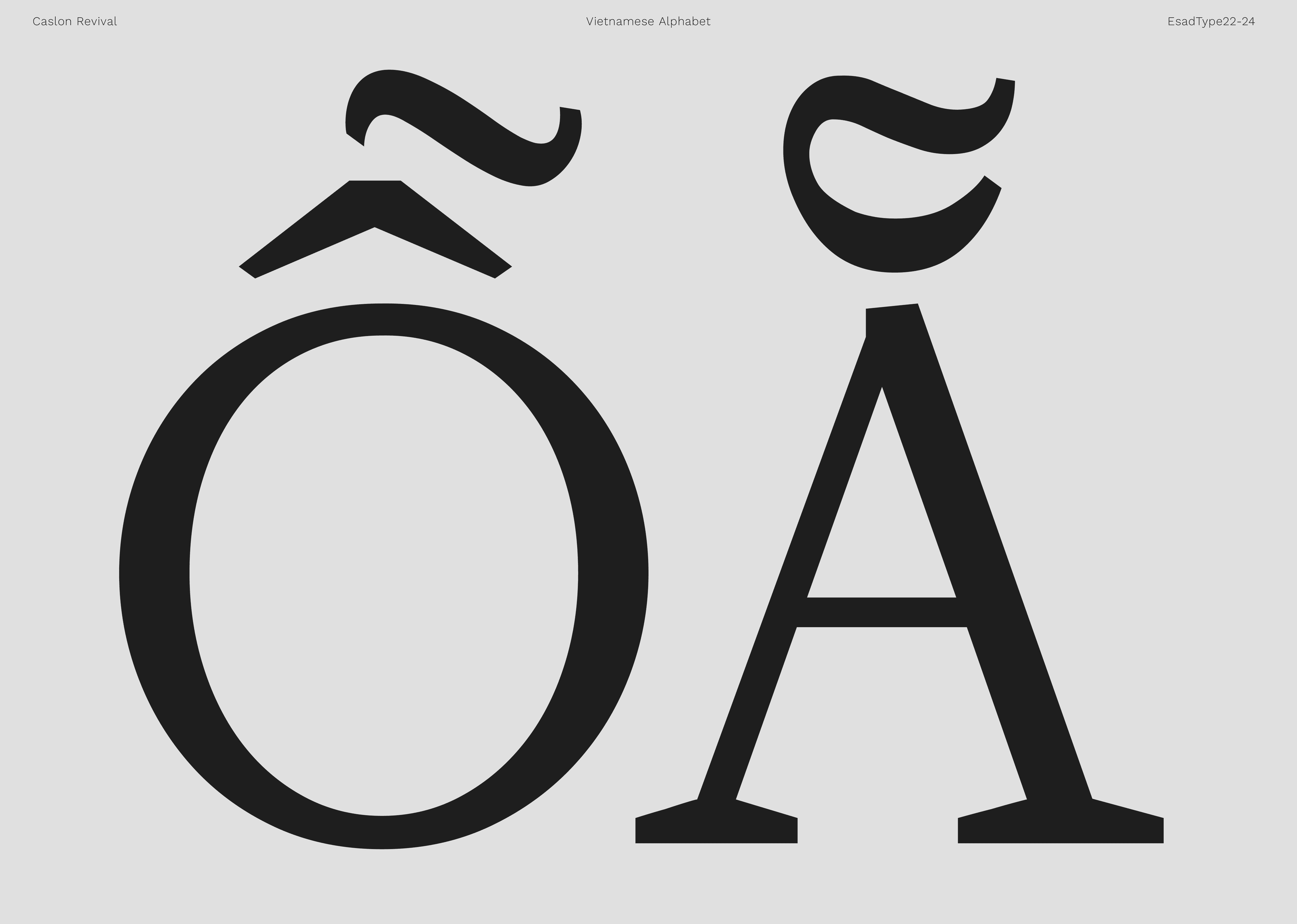
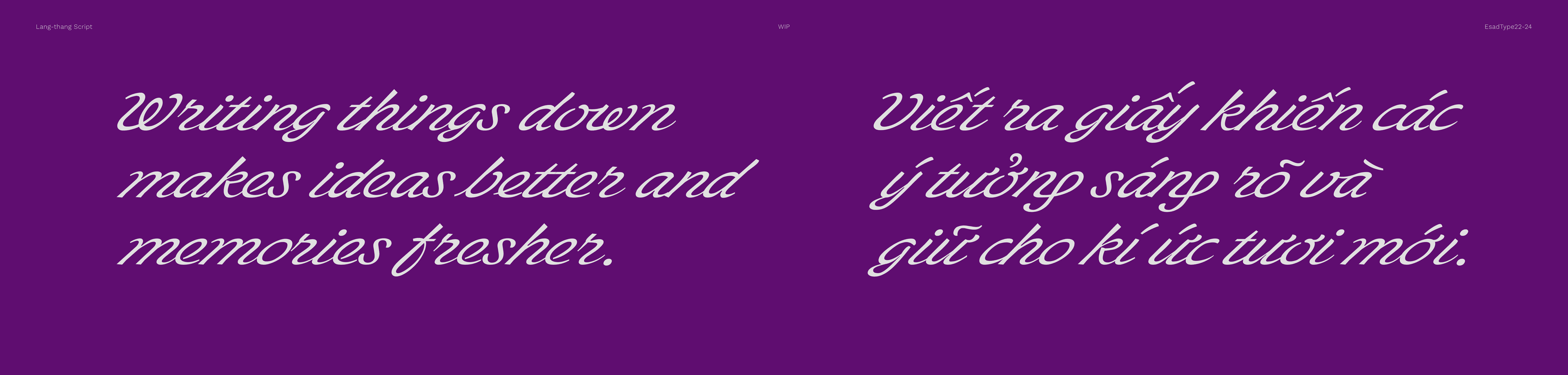
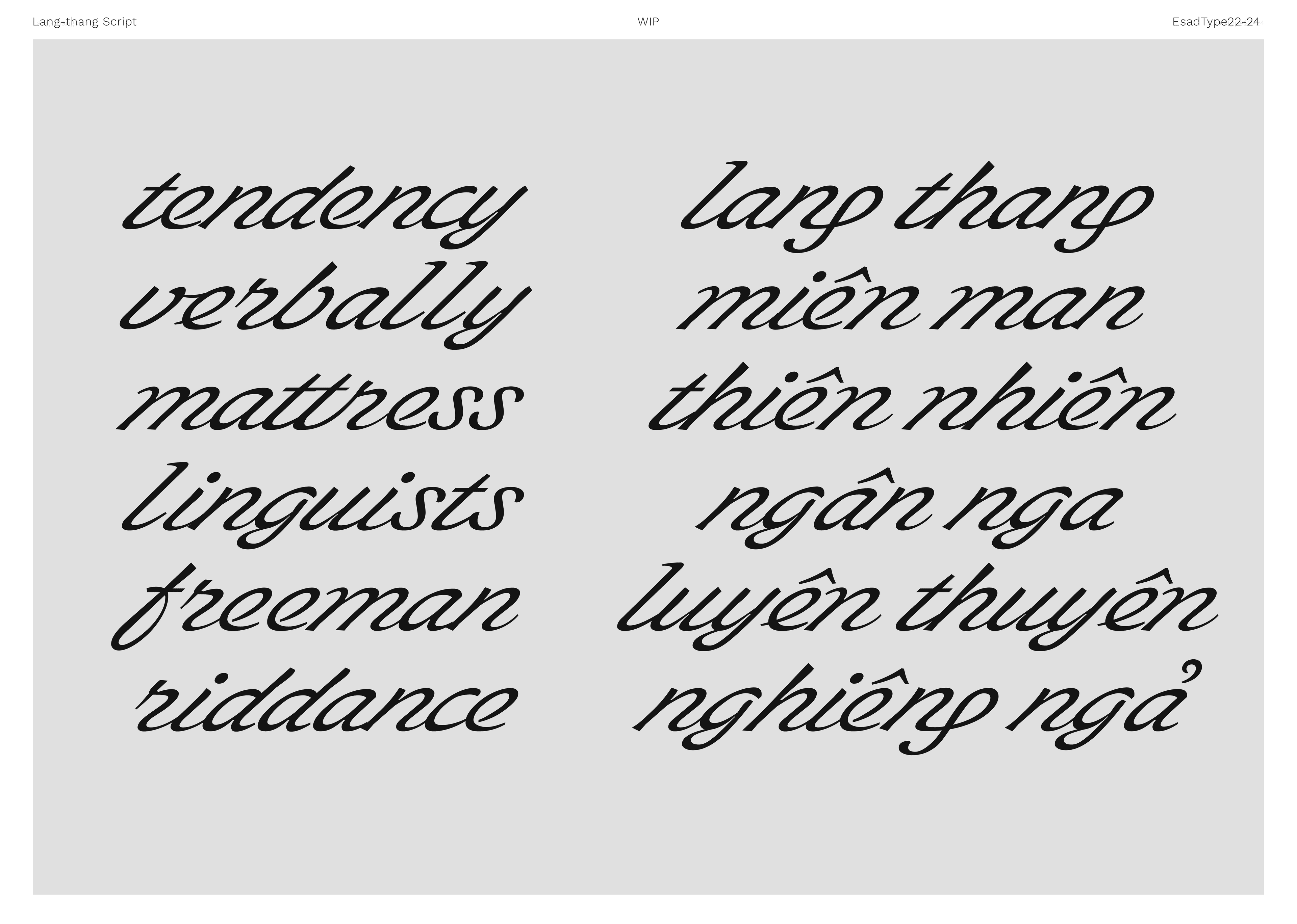
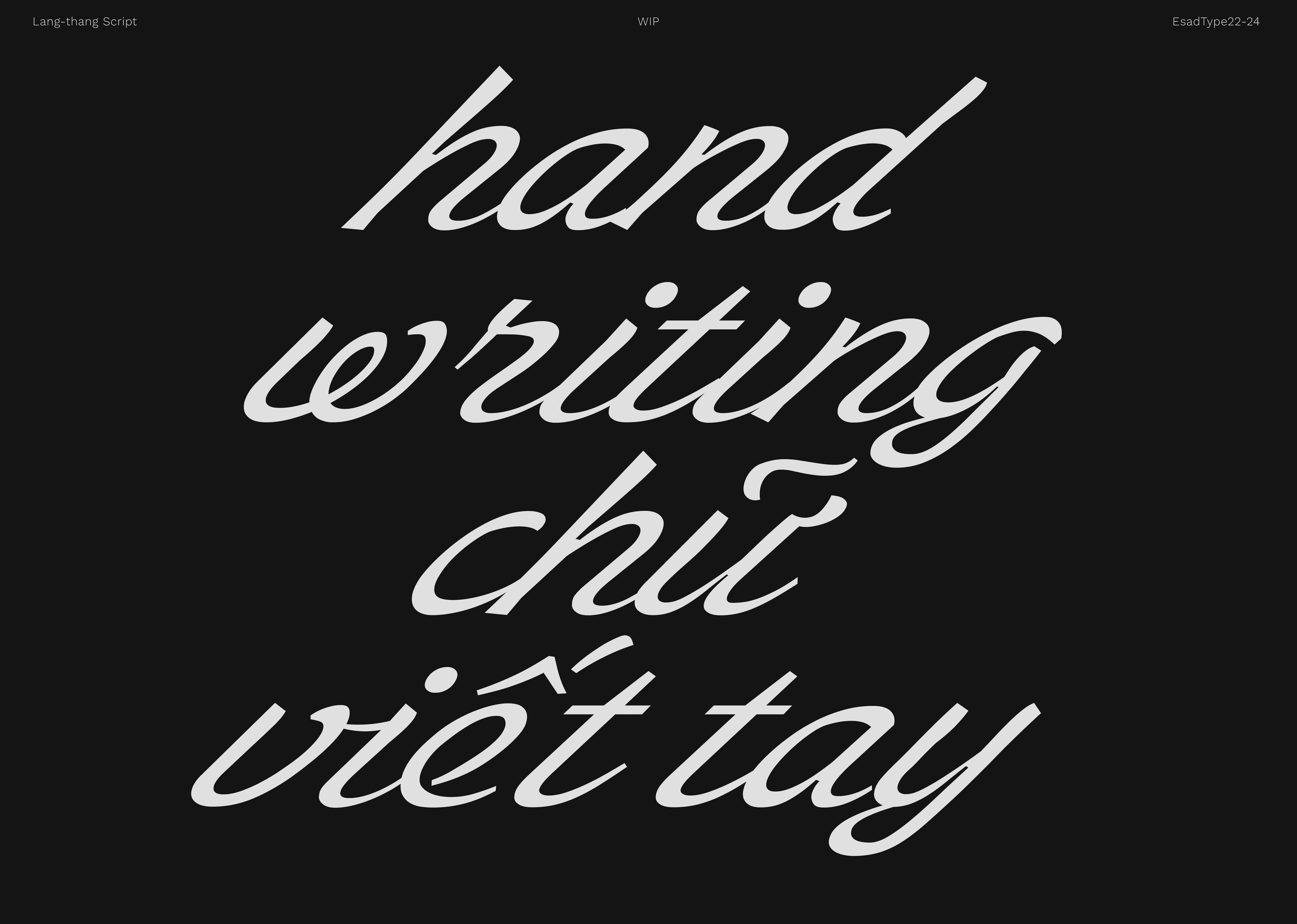
Gabriela Jaime
(1995, Mexico) Gabriela is a graphic designer based in Lausanne, Switzerland. She is currently at ÉCAL Master Type Design, exploring the possibilities of her practice through a pragmatic approach of collecting, testing, and discarding —content, tools, methods, and even fields of work. Throughout her practice she quickly realized that typography was the foundation of most of, if not all, of her work and approach as a graphic designer, therefore she decided to leap from user to maker, to further her skills and knowledge of the thing she loves most. Her work has been featured as a winner and finalist on global platforms such as Adobe Design Achievement Awards, Bienal Iberoamericana de Diseño, and Porto Design Biennale; lately, she was the recipient of the 2023 Encouragement Award by the City of Renens, in Switzerland.
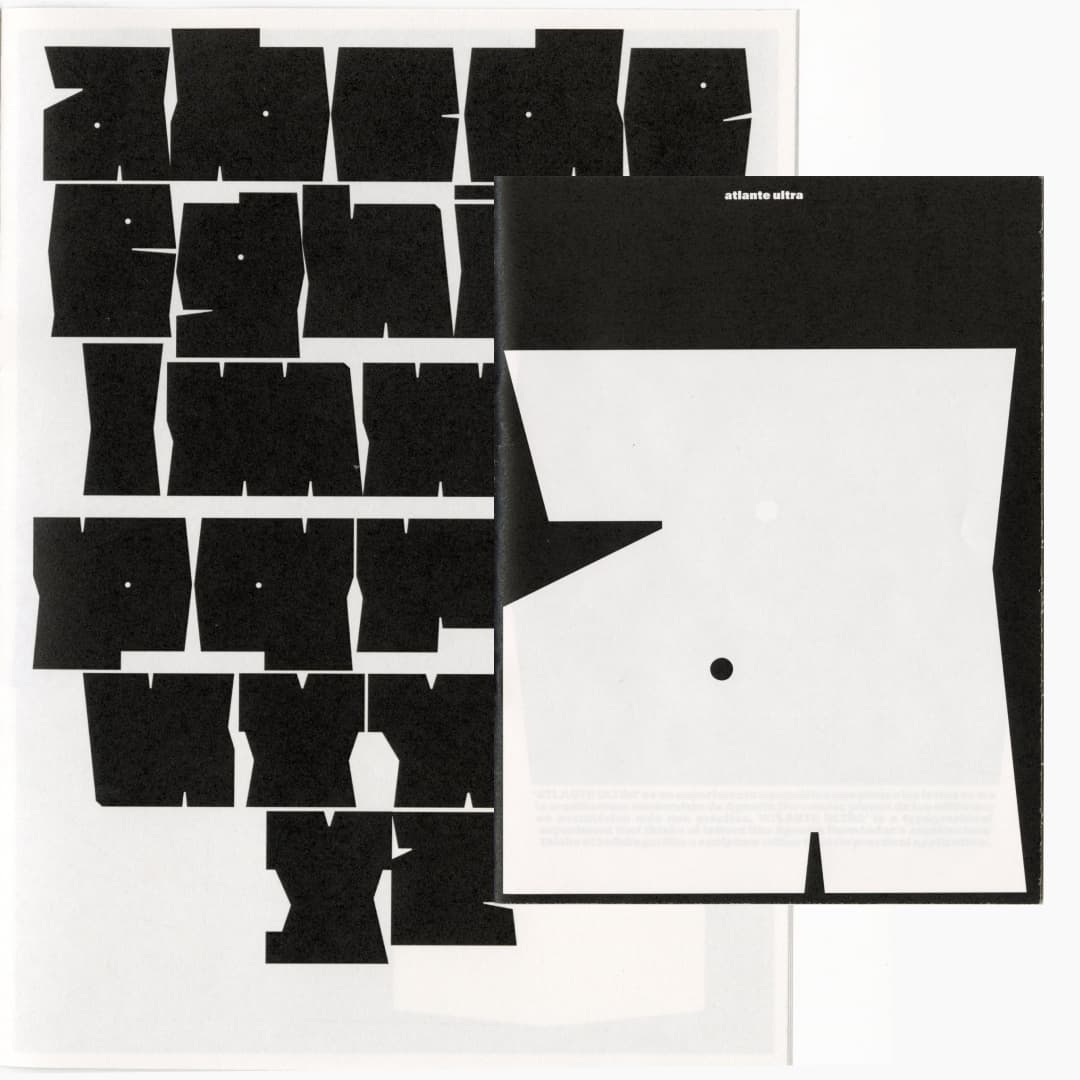
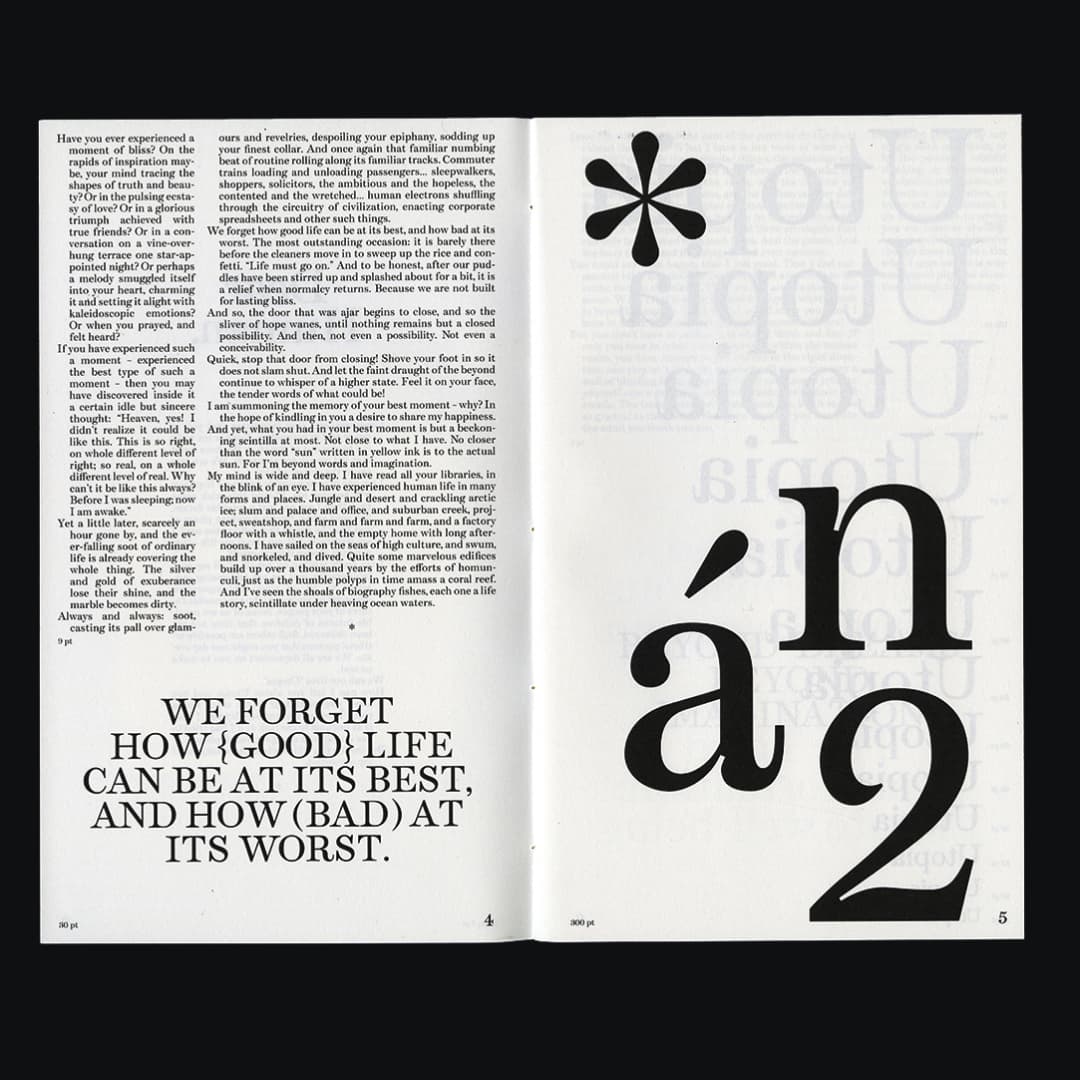
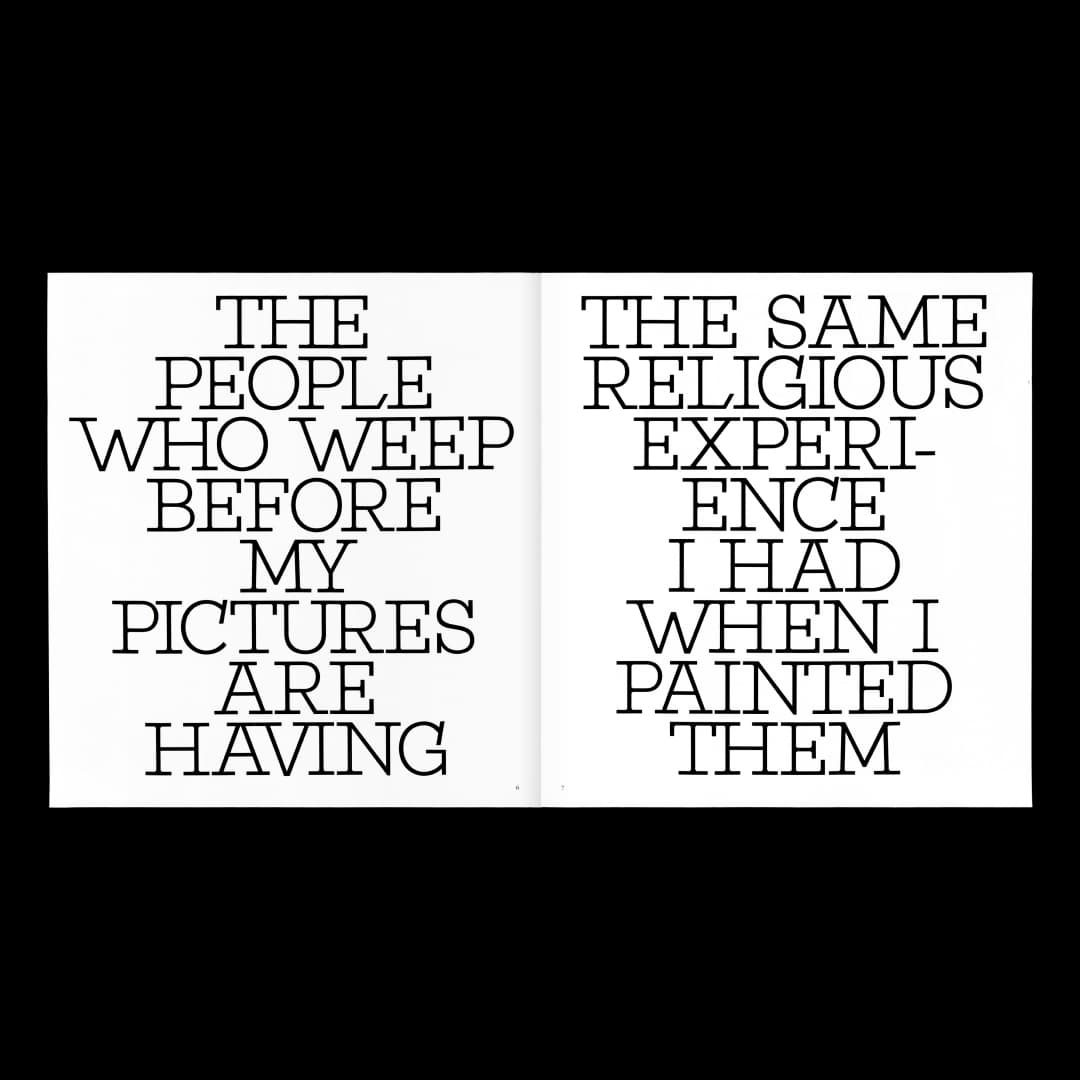
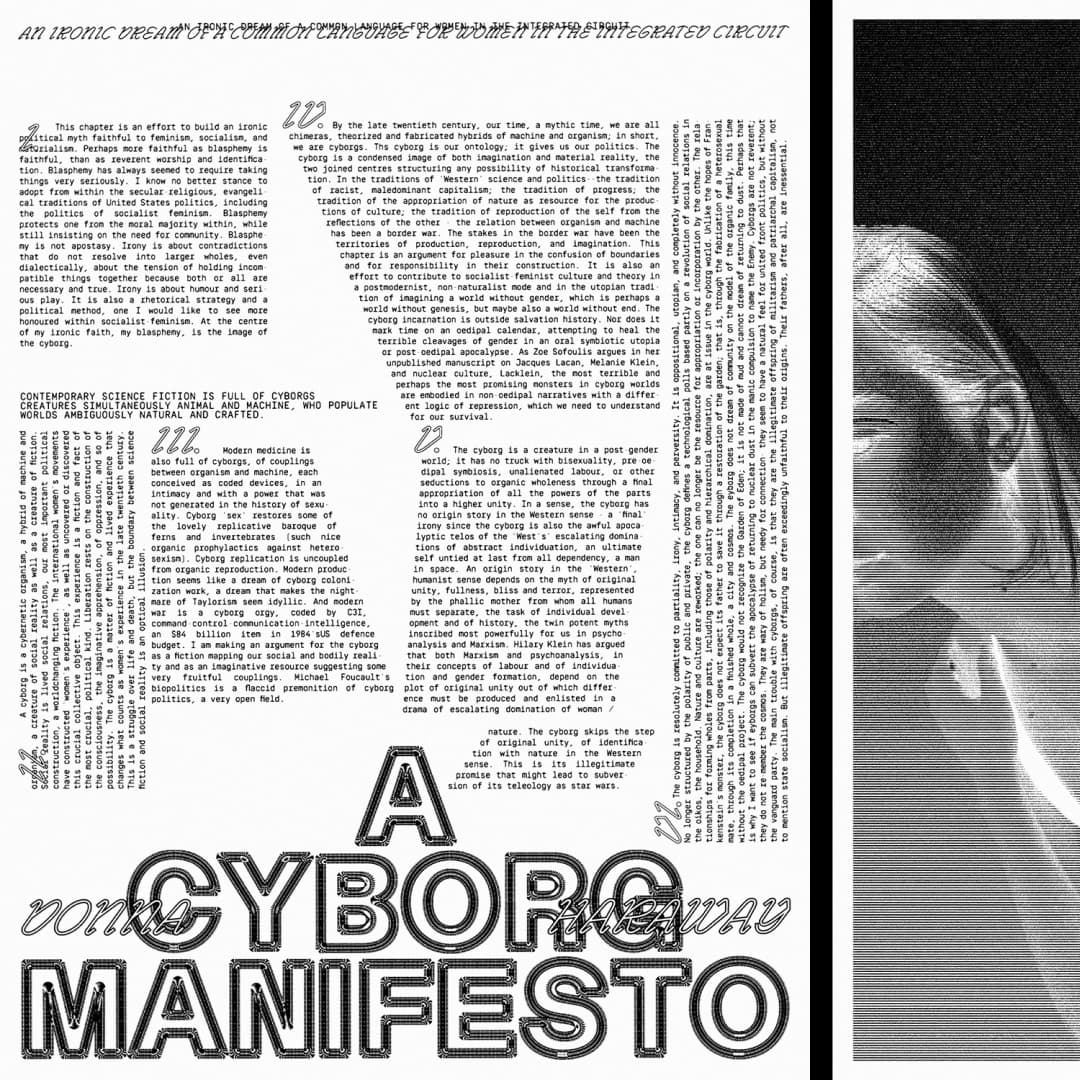
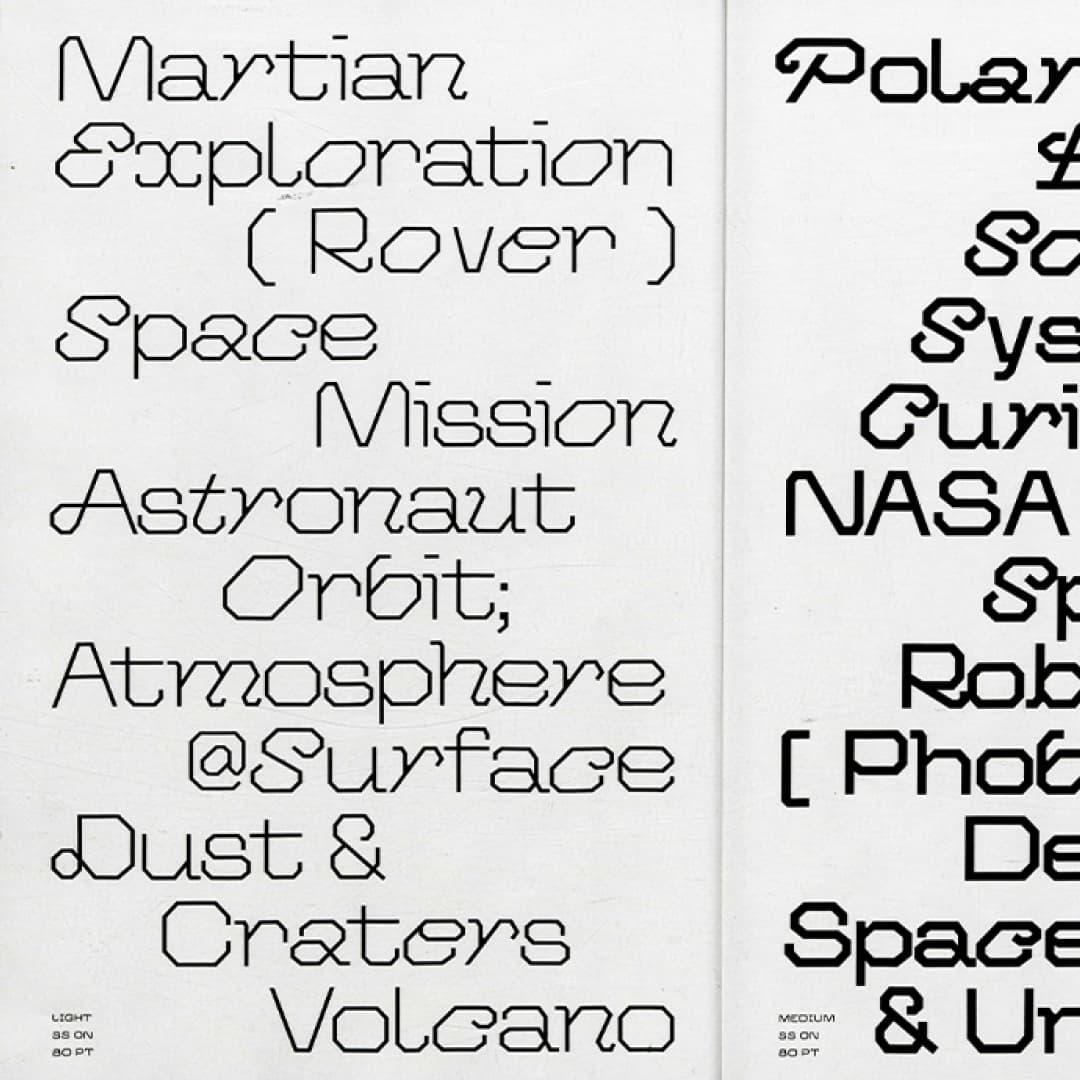
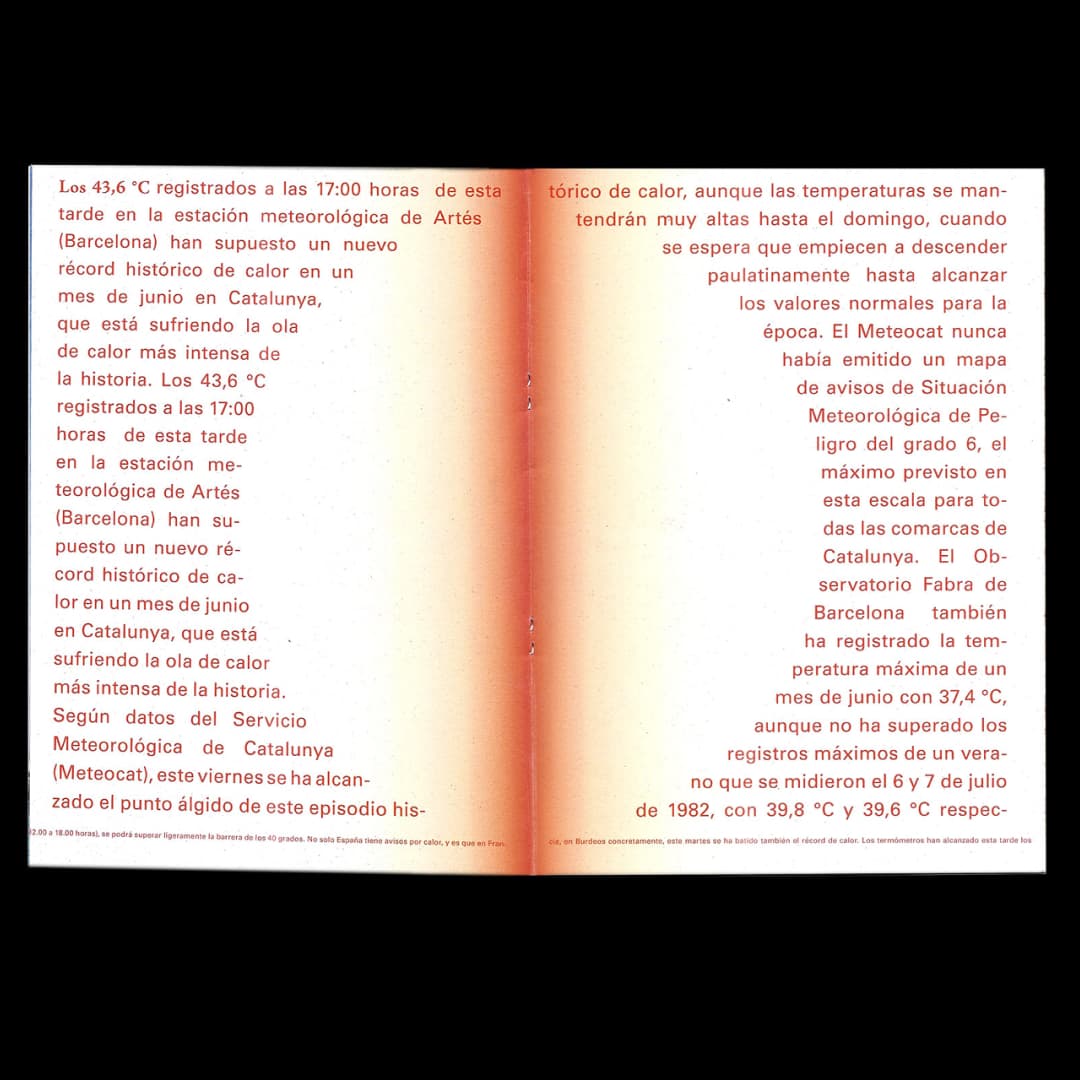
Kajama Chakma
Kajama Chakma is a graphic and type designer from Tripura, India now based in Reading, United Kingdom. She graduated from the National Institute of Fashion Technology in Bengaluru, India. During her internship at Ishan Khosla Design, she worked on documenting the Godna typeface from “The Typecraft Initiative” which eventually inspired her to pursue type design. She is a recent graduate from the University of Reading’s Master in typeface design program. Monga her first typeface is a multi-script typeface supporting Latin and Bengali scripts which she designed as a part of her master’s course and hopes to continue working on. Research is an integral part of her design process, for her Master’s dissertation, she worked on the “Evolution of the Chakma script from manuscript to digital” and hopes to expand her research on the Chakma script which also happens to be her mother tongue. In the coming years, she hopes to continue designing multiscript-type families with an interest in South Asian and Indian scripts.
Michelle Devlin
Michelle Britos Devlin is a Filipino-American Design Researcher currently based in New York, United States. They/she studied Graphic Design at Rhode Island School of Design, Communication Design Research at Royal College of Art, Latin Font Design at both Type West and Plantin Institute of Typography, and Hangul Font Design through The Alphabettes Font Design Mentorship program. For her thesis, Michelle analyzed the language of digital marketing for multilingual sans serif fonts and how word choice - particularly the use of the initialism ‘CJK’ - in some pieces published by ‘American big tech’ unduly homogenizes the unique histories of various writing systems throughout Asia. Michelle pays particular attention to the different ways word choice interacts with typography and font design in order to practice interdisciplinary ways of drawing letterforms. They study Korean language as a way to explore different ways of drawing legible Hangul characters outside of a purely visual approach to constructing letterforms. At this time, they work as a freelance web designer and design researcher with a special attention to typography. In the future, Michelle will continue to independently muse over questions related to fonts, technology, and language, like ‘What if Twitter was typeset in Times New Roman?’
Lee Qiu Wen
Lee Qiu Wen (Avery) is a type designer from Singapore. In 2022, she graduated from Nanyang Technological University with a Bachelor’s in Fine Arts (Visual Communications) and is currently enrolled in the 2023 Type West Online Postgraduate Certificate Program. Qiu Wen describes type as a culmination of all that she’s passionate about: writing, culture, and languages. Growing up in a multicultural society, she has always found it intriguing to be surrounded by different languages. When a career in writing did not take off, she pursued graphic design instead and stumbled upon type. That’s when she realised that words fascinated her in ways more than one. While in university, Qiu Wen met like-minded designers who recognised a gap in local type design education and practice. Excited by the potential of type, the three of them established a type collective: Death of Typography (DOT). DOT hosts type workshops, conducts research on type and design, and has a foundry arm dedicated to releasing typefaces created by young designers. She hopes to continue refining her craft and exploring paths to enable local designers to access and learn type.
Andrea Hayek
Andrea Hayek is a Lebanese graphic designer and aspiring type designer. She was born and raised in Beirut, the cultural hub of the Middle East. She completed her Bachelor’s degree in Graphic Design at the American University of Beirut (AUB). She worked mostly in branding and publication design since her graduation in 2019, but pursues her passion for type design in her spare time. Her complicated relationship with her country has fueled a lot of her creative ideas; including her first Latin type family, Madinati, which she created during TypeParis22. The political and economic deterioration of Lebanon, as much as its culture and heritage, has become a part of Andrea’s identity. She is eager to grow her knowledge and experience in creating Latin and Arabic typefaces, in hopes of one day contributing to making Type Design education more accessible in Lebanon and the Middle East.
Shriya Agarwal
Shriya Agarwal is an Indian Communication Designer who pursued her Bachelor’s Degree from the National Institute of Design, Ahmedabad, India. Her journey with art and design started with a solo exhibition of 100 paintings at the age of four that eventually transformed into a deep interest in art direction, graphic design, and type design. She was introduced to typeface design early in college and embraced the challenge to create a typeface - Meenar, in under two weeks. Meenar - is a Variable Devanagari Typeface inspired by the Art Deco Movement of the 1920s. Fusing one of India’s traditional scripts and the historical Western design movement resulted in a visually captivating and culturally significant expression. Shriya is currently practicing graphic design through a focused and comprehensive study of design principles with a combination of technique, aesthetics, and intuitive expression. She strives to create inclusive, culturally sensitive, and visually compelling design systems that resonate with a global audience.
Yaprak Buse Çağlar
Yaprak Buse Çağlar is a type designer from Türkiye. She received her Bachelors degree in Visual Arts and Visual Communication Design in Sabancı University. She always had a special interest for fonts and tried to mold this interest with her creativity. She worked as a graphic designer in many global agencies, yet later agreed on pursuing her true passion in type. She attended in TypeParis’22, got fascinated by everything related to type design and decided on being a full time type designer. She also will be attending esadType program to widen her perspective on this area and train her abilities further. She also likes to push the limits of letter shapes so that makes her a huge fan of Art Nouveau type!
Yejin Wi
Yejin Wi is a typeface designer from Seoul, South Korea. She worked for six years at Sandoll, a Korean type foundry, where she developed an expertise in Hangul and a curiosity about the formative relationship and history of Chinese and Japanese scripts. While studying for her MA in Typeface Design at Reading, UK, she experienced the broader type design industry and learned a variety of scripts, including Arabic and Latin alphabets. Still, what inspires and motivates her most is her East Asian heritage and language. She is currently an active member of FDSC(Feminist Designers Social Club), a Korean women’s graphic design community, and also loves collaborating with her colleagues and going for walks in sunny weather.